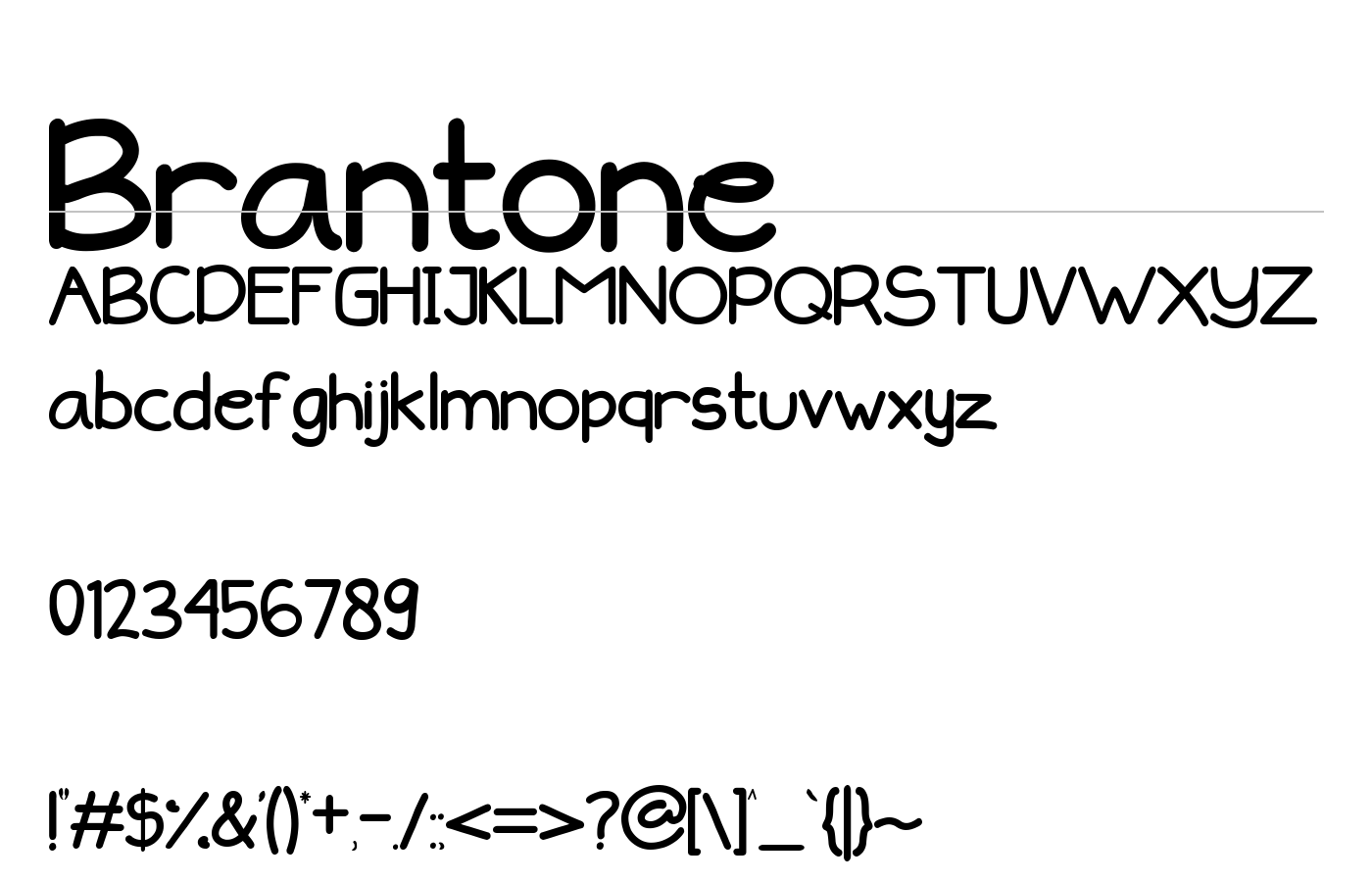
Brantone is a playful and friendly sans serif font with a casual, hand-drawn feel. Its rounded, slightly irregular letterforms and moderate x-height give it a warm and approachable personality, ideal for informal and creative designs. This font works well for children’s books, fun branding, and any project that seeks a lively, personal touch.
Brantone Font
About Brantone Font